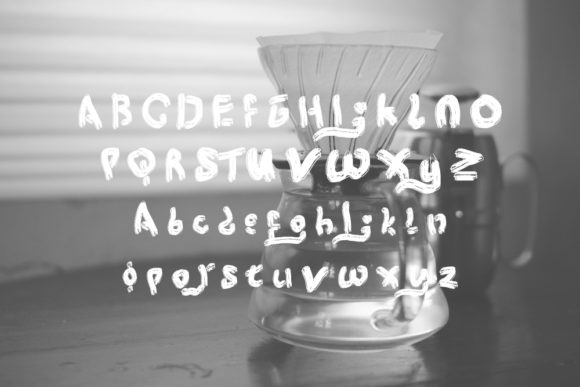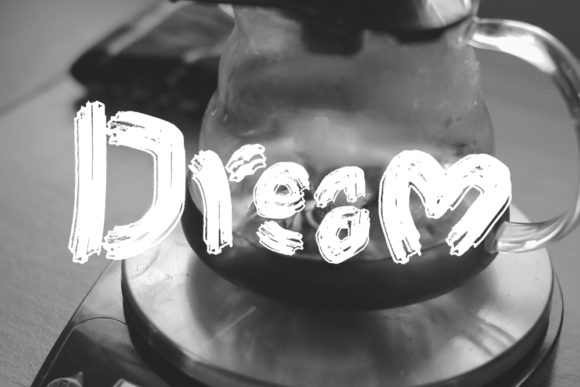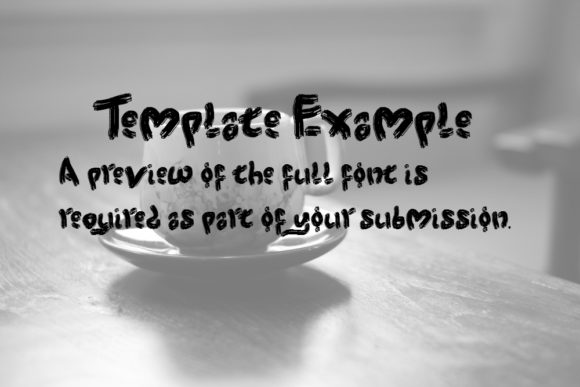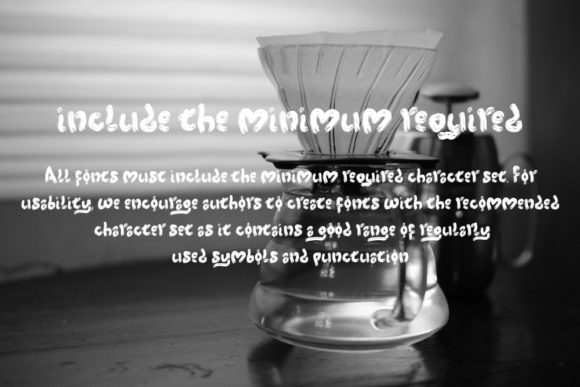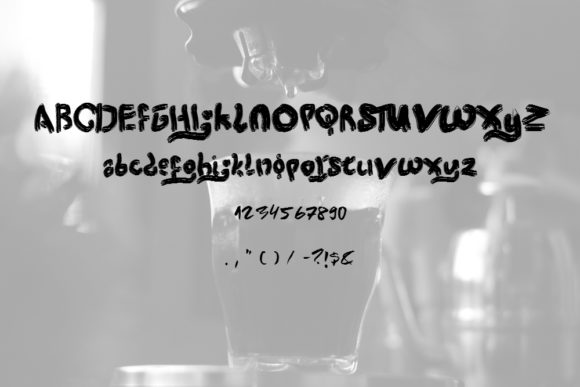
Introducing Doelkenyoet Font: The Perfect Blend of Clean and Quirky
In the world of typography, fonts play a crucial role in conveying the tone and personality of a brand or project. For designers and crafters looking for a unique and versatile font, Doelkenyoet is an excellent choice. This casual display font, created using a brush pen, offers a clean and quirky aesthetic that is perfect for a wide range of applications.
What is Doelkenyoet Font?
Doelkenyoet is a carefully crafted display font that boasts a distinctive, hand-brushed look. Its creator has skillfully used a brush pen to achieve a clean and slightly quirky appearance, making it an ideal fit for projects that require a personal touch. Whether you’re working on logos, branding, social media graphics, or crafty DIY projects, Doelkenyoet is sure to make your work stand out.
Key Features of Doelkenyoet Font
- Clean and Quirky Aesthetic: The font’s unique blend of cleanliness and quirkiness makes it versatile enough to be used in various contexts, from professional branding to personal DIY projects.
- Brush Pen Created: The use of a brush pen in creating Doelkenyoet gives it an authentic, hand-crafted feel that is both charming and engaging.
- High Versatility: Doelkenyoet can be used across a range of mediums, including logos, branding materials, social media posts, and craft projects, making it a valuable addition to any designer’s or crafter’s toolkit.
- Easy to Read: Despite its quirky nature, Doelkenyoet remains highly legible, ensuring that your message is communicated effectively to your audience.
Uses of Doelkenyoet Font
The versatility of Doelkenyoet font makes it suitable for a myriad of applications. Here are some of the ways you can utilize this unique font:
- Logo Design: Create memorable and impactful logos that stand out with Doelkenyoet’s distinctive style.
- Branding: Establish a consistent brand identity with a font that exudes both professionalism and personality.
- Social Media Graphics: Enhance your social media presence with eye-catching graphics and posts that utilize Doelkenyoet’s clean and quirky charm.
- Crafty DIY Projects: Add a personal touch to your handmade projects, such as craft labels, posters, or invitations, with the unique aesthetic of Doelkenyoet.
Why Choose Doelkenyoet Font?
In a sea of fonts, Doelkenyoet stands out for several reasons:
- Uniqueness: It offers a fresh alternative to more traditional fonts, allowing your work to stand out.
- Flexibility: Its versatility means you can use it across various projects, from professional to personal.
- Personality: Doelkenyoet brings a level of personality and charm to your work that is hard to achieve with more conventional fonts.
Doelkenyoet font is a valuable resource for designers and crafters looking to add a touch of personality to their work. Its unique blend of cleanliness and quirkiness, coupled with its versatility and readability, makes it an excellent choice for a wide range of projects. Whether you’re creating professional branding materials or working on personal DIY crafts, Doelkenyoet is sure to enhance your work with its distinctive charm.